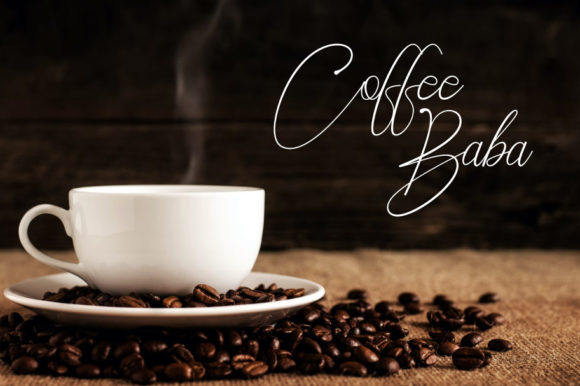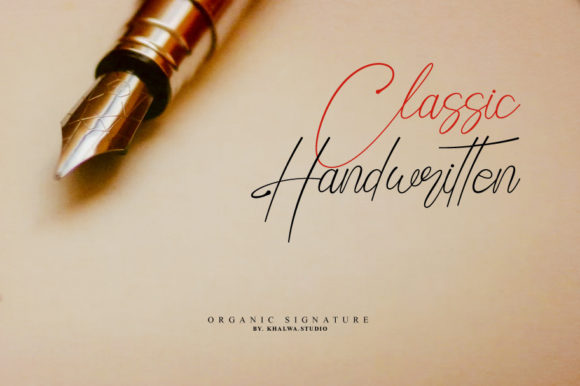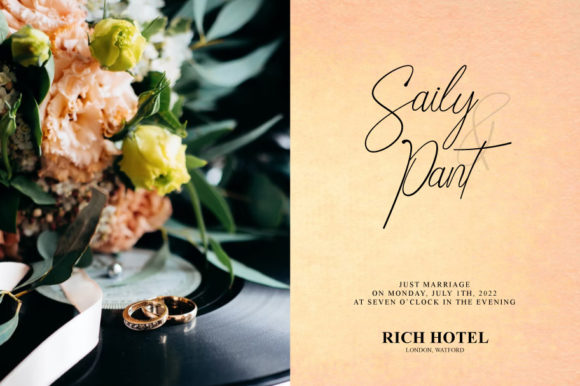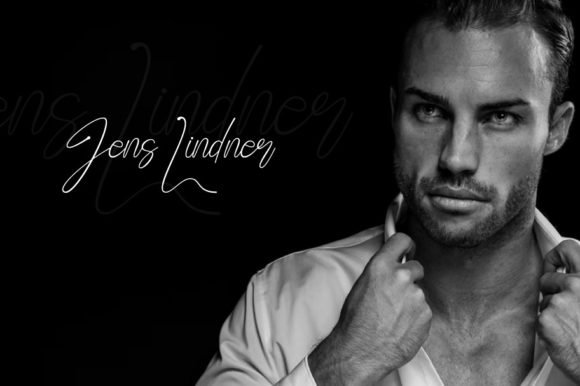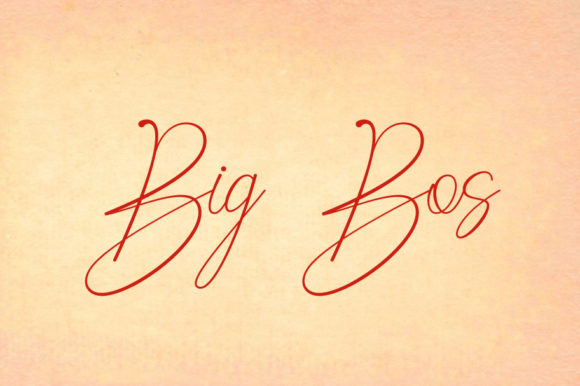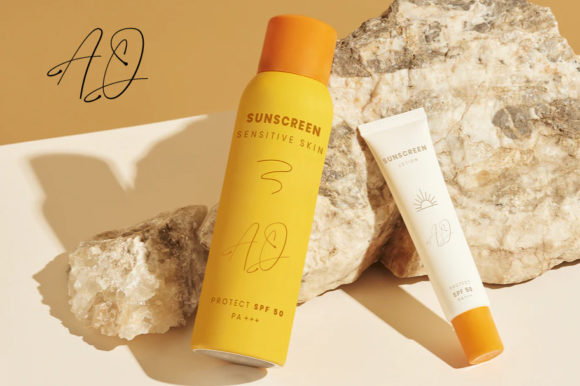
Introduction to Kamkil Font
Have you ever found yourself struggling to convey a personal touch in your designs, only to settle for a generic, mass-produced look? It’s a frustrating feeling, especially when you know that the right font could make all the difference. That’s where the Kamkil Font comes in – a beautiful, high-quality script typeface that captures the essence of natural handwriting.
As a designer, you know how valuable it is to have a versatile design resource like the Kamkil Font at your disposal. With its impressive features and transparent background, this font is perfect for a wide range of creative projects, from branding and logos to social media posts and product packaging. And the best part? It’s available for free download, making it an invaluable addition to your design arsenal.
Key Features of Kamkil Font
- High-quality design for creative projects with a unique, modern aesthetic.
- Comes with a transparent background, allowing for seamless integration into various design resources.
Honest Review: Kamkil Font
I recently had the chance to work with the Kamkil Font in a creative project, and I must say it’s been a great addition to my design resources. This font is perfect for anyone looking for a unique and high-quality design element.
- ✨ The font has a modern and elegant design that adds a touch of sophistication to any project.
- ✨ It’s incredibly versatile and can be used for a wide range of applications, from headings to body text.
- ✨ The transparent background makes it easy to layer and customize the font to fit your design needs.
- ⚠️ The font is not as comprehensive as some of the more popular fonts out there, with limited character sets and special characters.
- ⚠️ It may not be the best choice for projects that require a lot of customization or complex typography.
Kamkil Font
Kamkil Font is a high-quality design resource perfect for creative projects. Its unique style and transparent background make it an ideal choice for designers and artists.
To get the most out of Kamkil Font, use it for headings, titles, and emphasis in your design. Common use cases include:
- Brochure design
- Poster design
- Infographic design
Alternatives to Kamkil Font
Great Vibes Font is a high-quality, handwritten font ideal for creative projects that require a touch of elegance and sophistication. It features a transparent background, making it perfect for designing logos, titles, and quotes. Great Vibes Font is a free download and can be used for both personal and commercial projects.
When to use: Great Vibes Font is suitable for wedding invitations, quotes, and other creative projects where a handwritten feel is desired.
Comparison to Kamkil Font: Great Vibes Font has a more elegant and refined feel compared to Kamkil Font, making it a better choice for high-end projects. However, Kamkil Font has a more unique and quirky style that can be perfect for certain projects.
Alex Brush Font is a beautiful, high-quality font that features a transparent background and is ideal for creative projects that require a touch of sophistication and elegance. It is a free download and can be used for both personal and commercial projects.
When to use: Alex Brush Font is suitable for wedding invitations, quotes, and other creative projects where a beautiful and elegant font is desired.